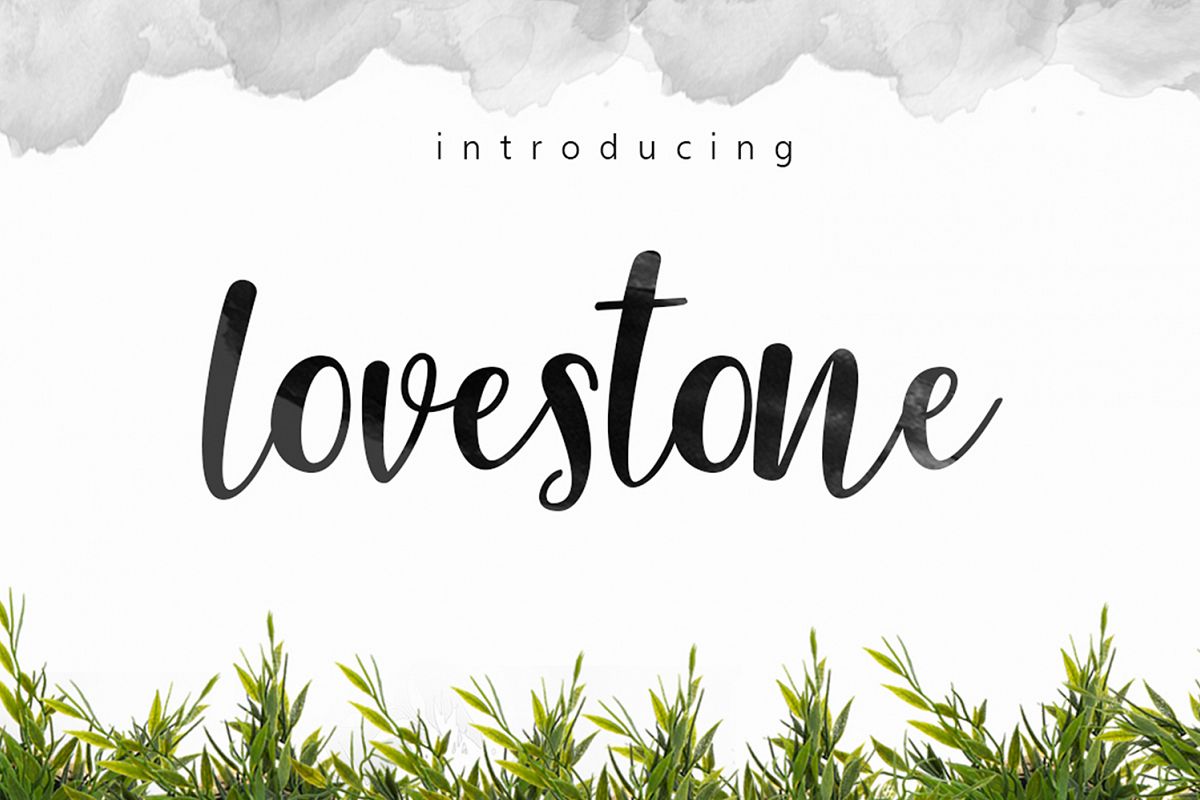
Lovestone Script
Thanks what if you are interested in Lovestone Script! Script Font a fun yet elegant with nice shape and trendy, which allows you to create beautiful handmade typography and beautiful for the sake of your design.